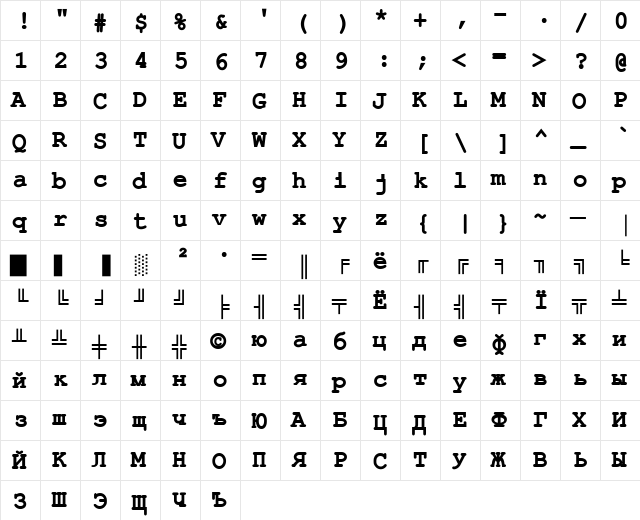
ER Kurier KOI8-R Bold
Design Context for ER Kurier KOI8-R Typeface
ER Kurier KOI8-R offers clean, dependable letterforms without strong stylistic allegiance, making it a practical choice for designers who need flexibility. Its bold stroke weight gives it real presence on the page.